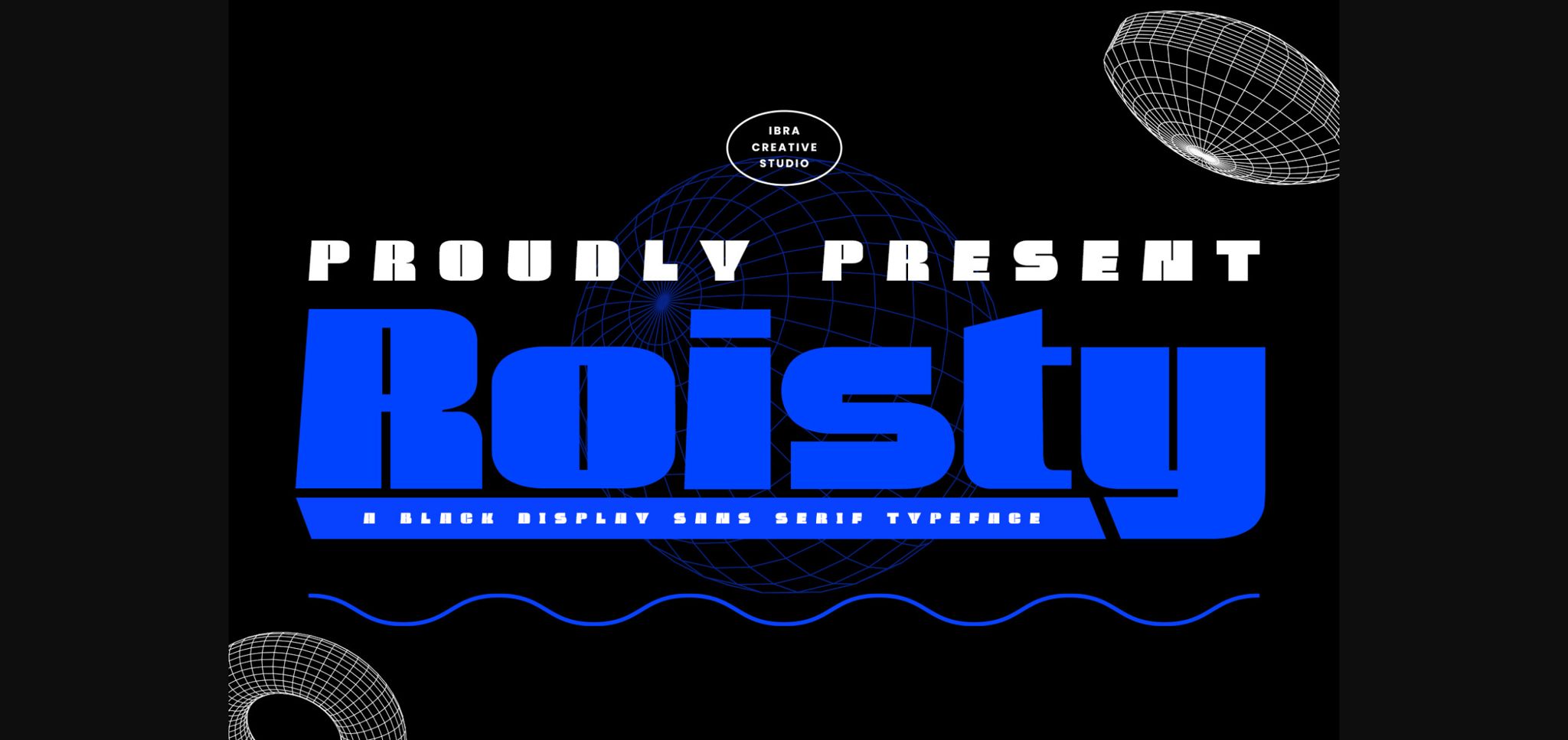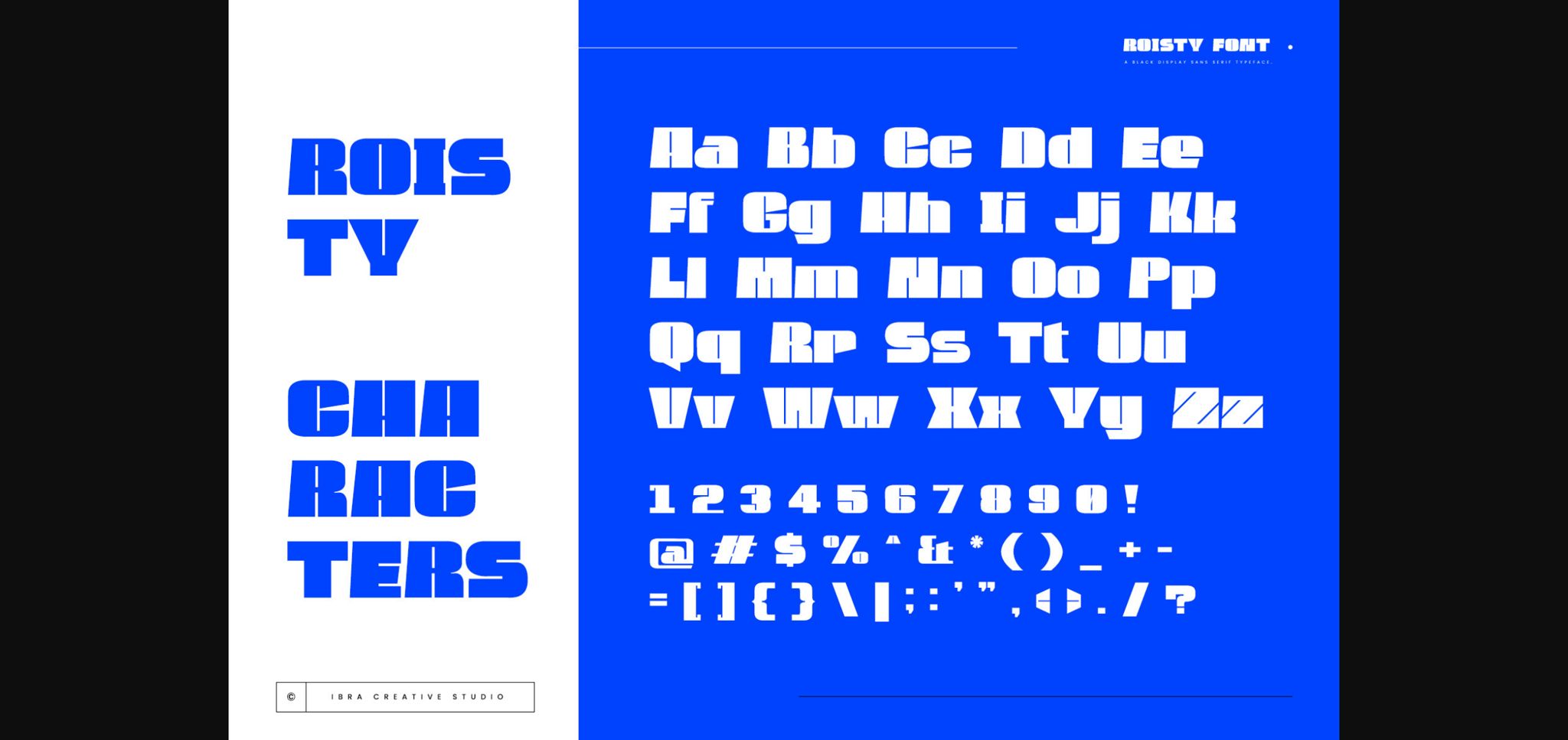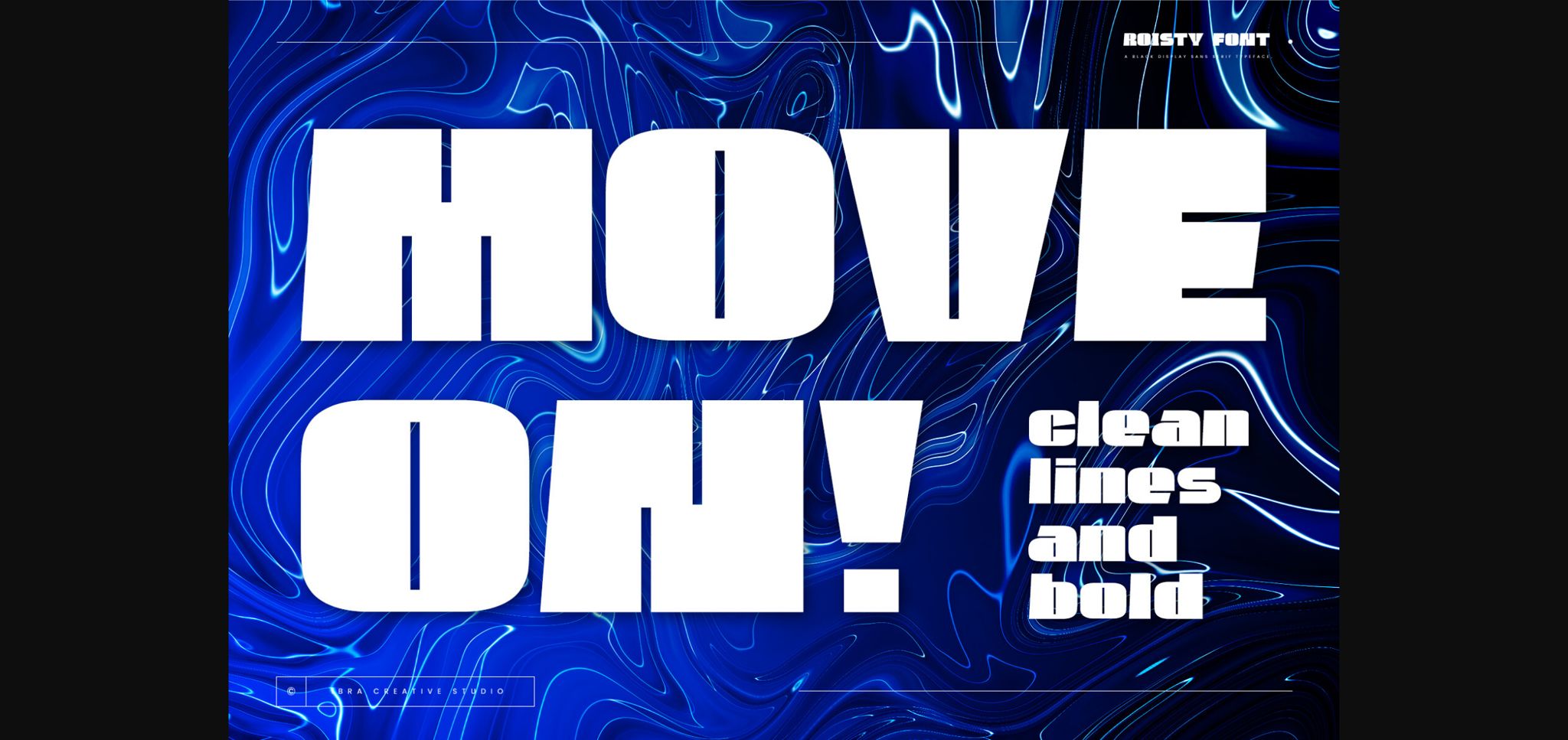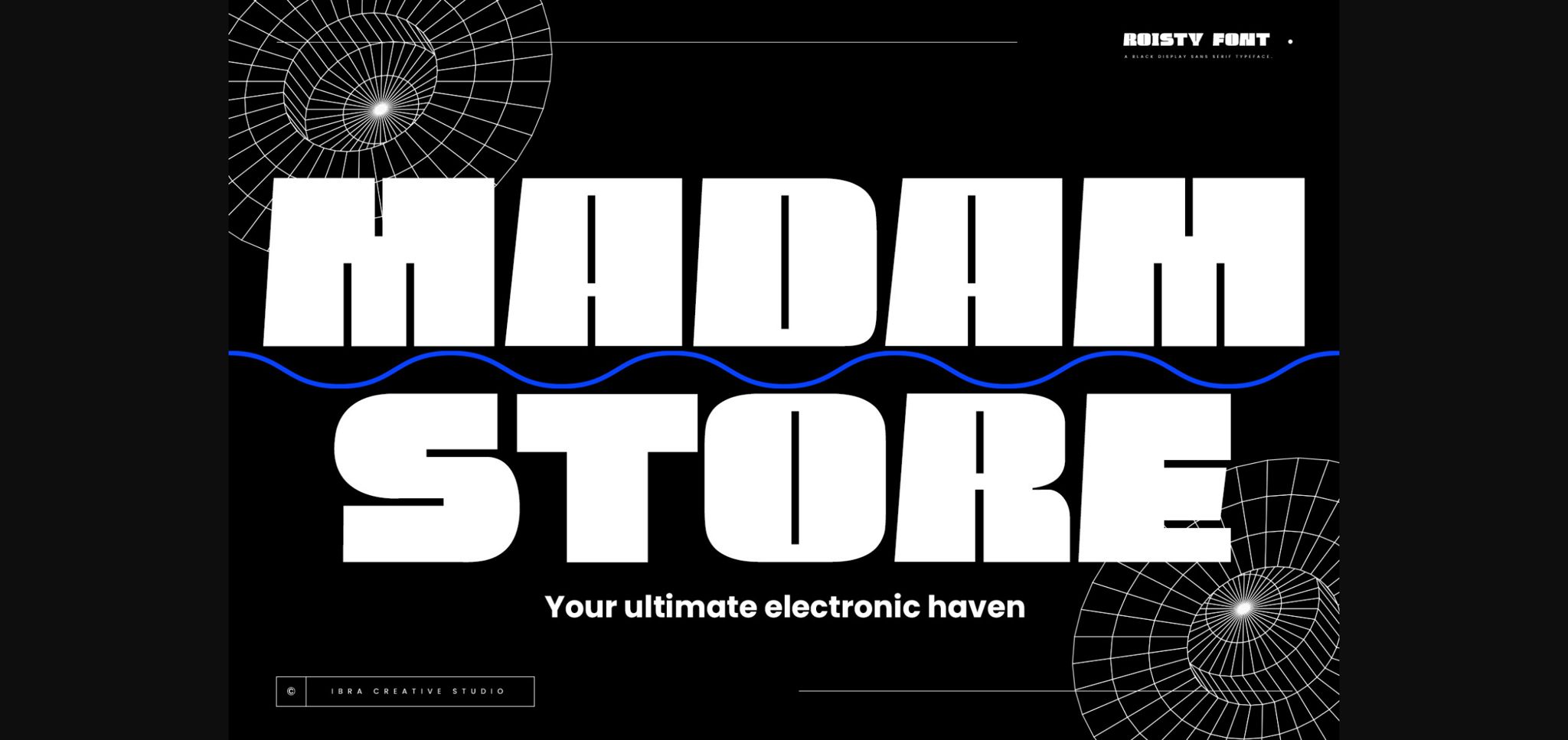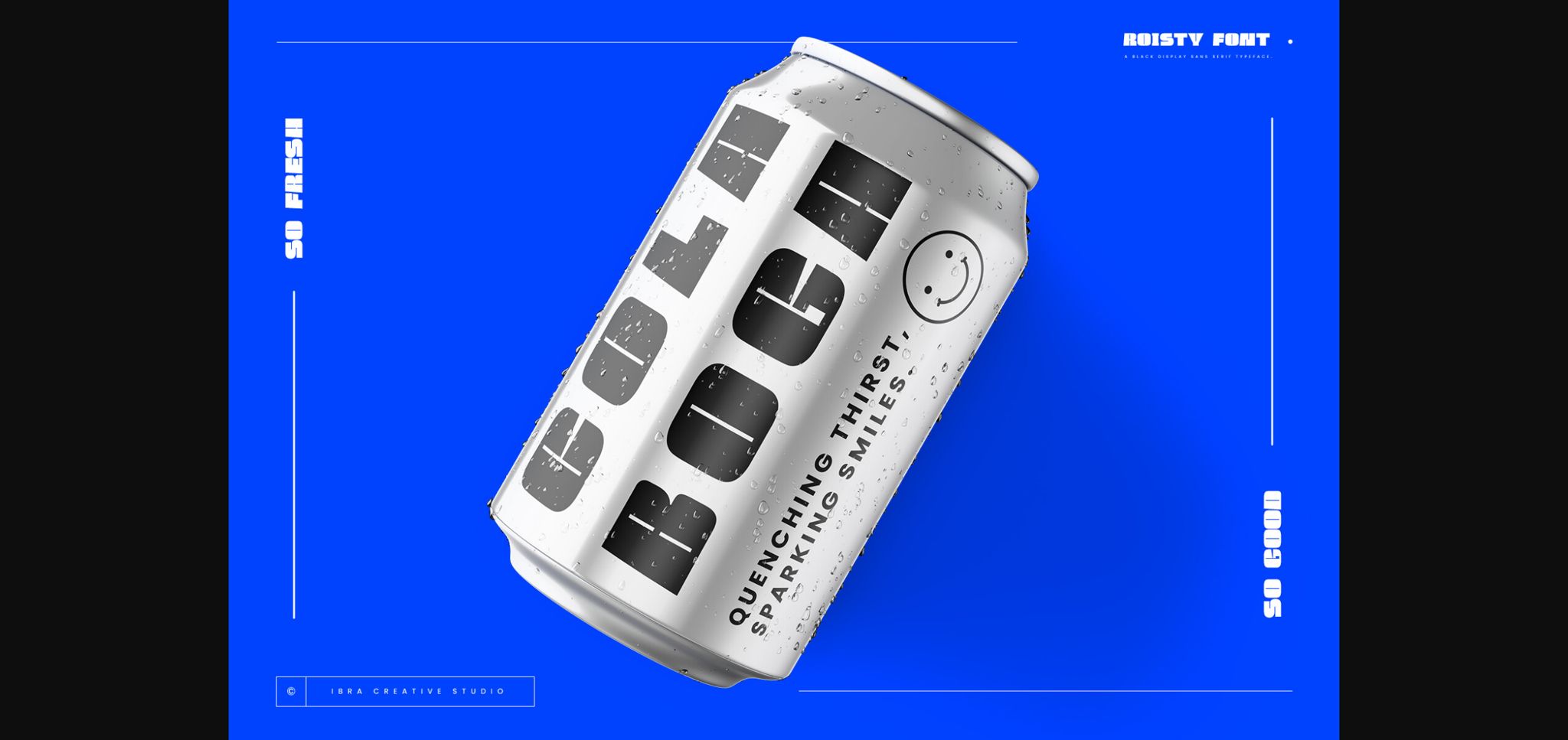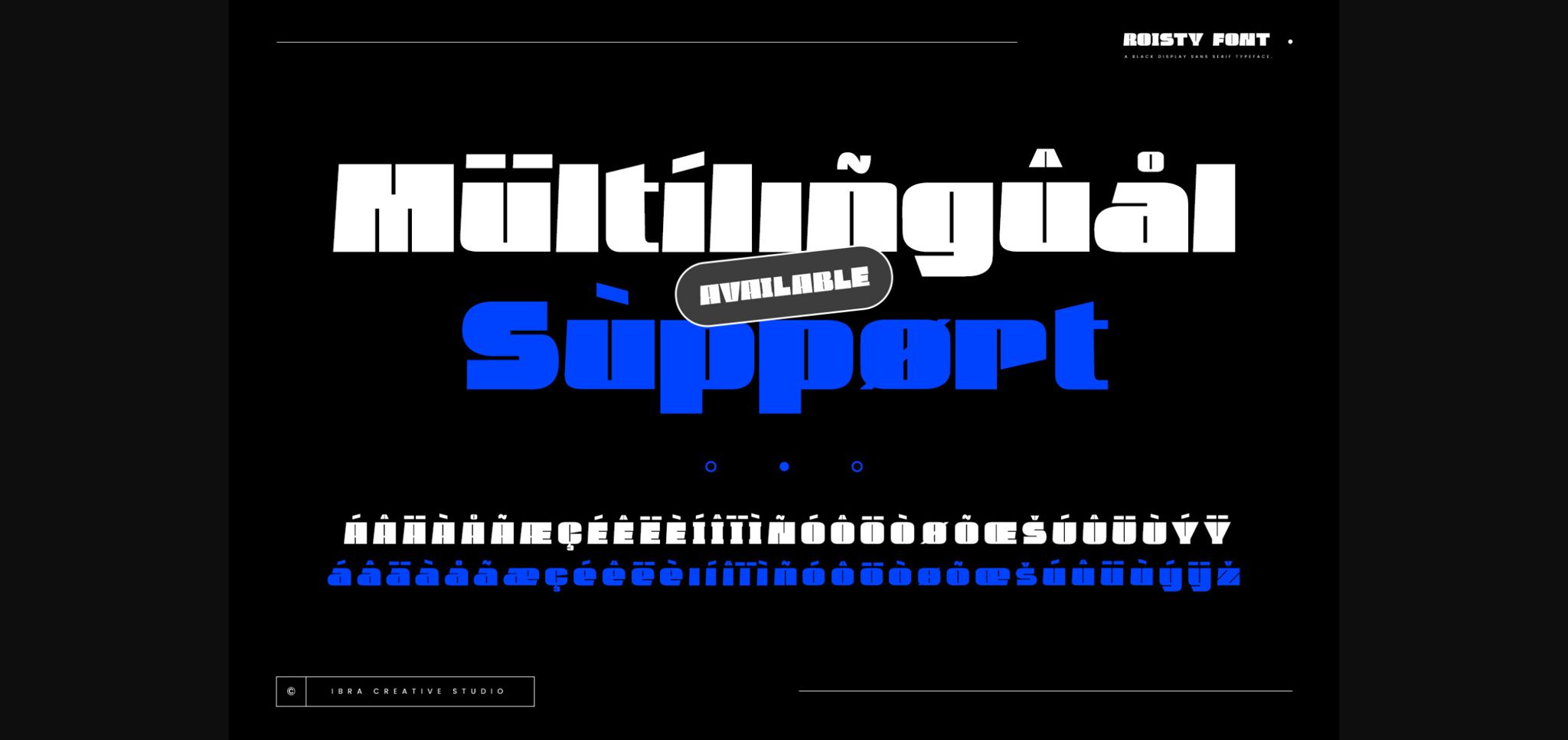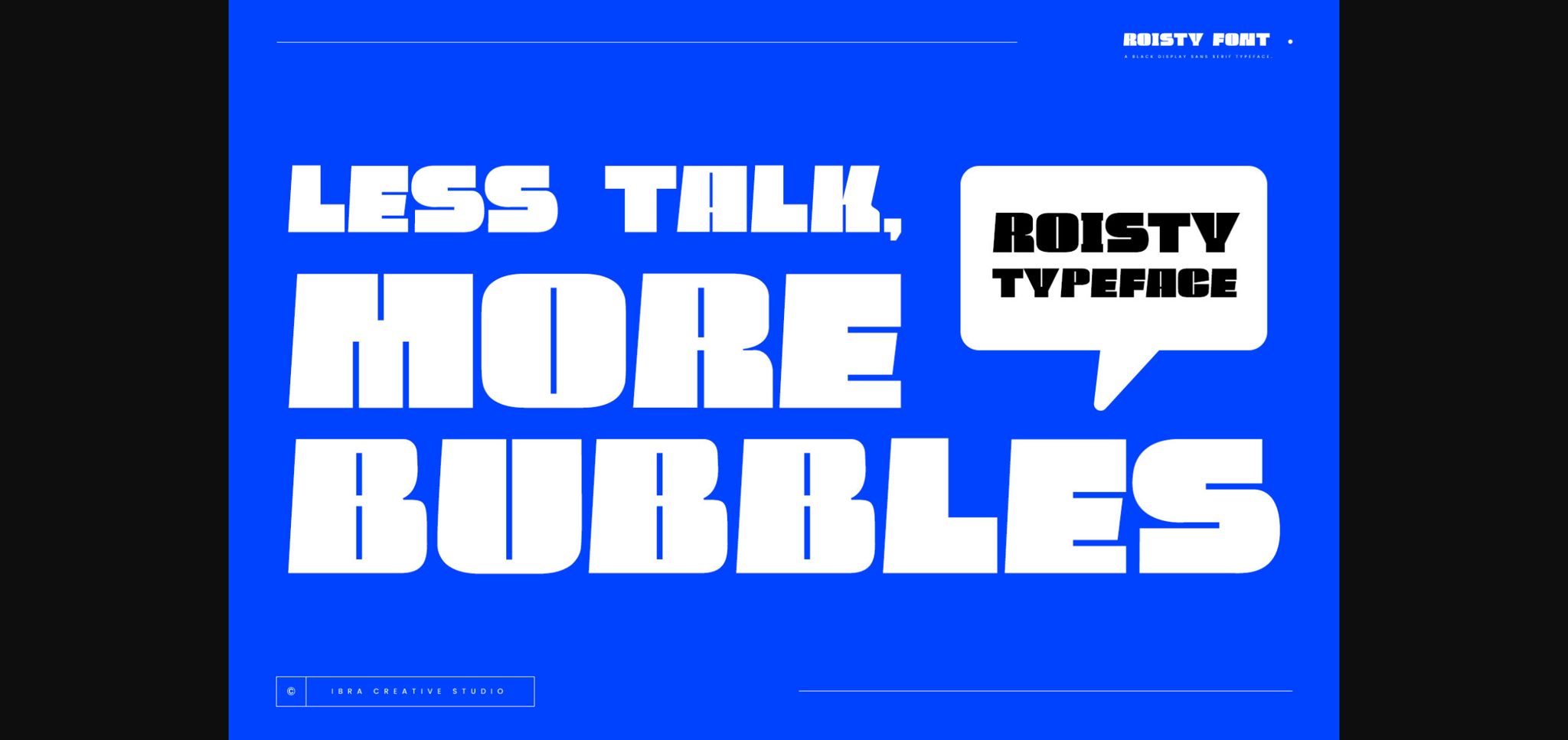
Roisty Font
About Roisty Font
Roisty, a sleek and contemporary black display sans-serif typeface, exudes sophistication and modernity in its design. With clean lines and a bold, assertive presence, Roisty commands attention while maintaining readability. The sharp contrast between its thick strokes and thin lines creates a visually striking appearance, making it an ideal choice for headlines, logos, and other display purposes.